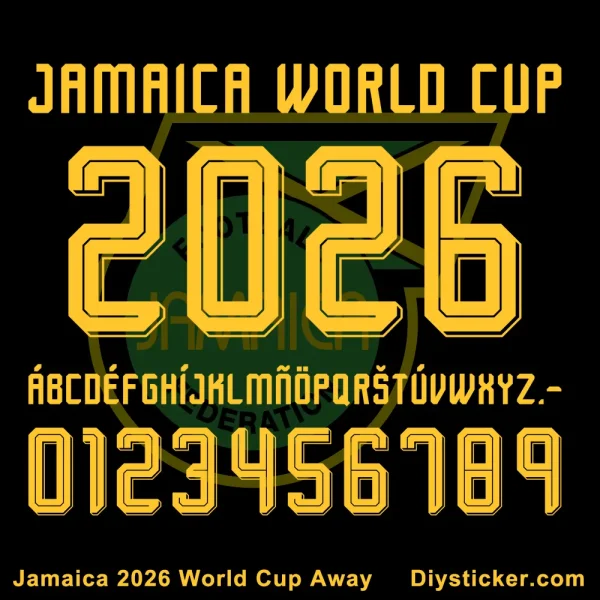
Get the exclusive Jamaica 2026 World Cup Away Font, inspired by the legendary Bob Marley and the “Football is Freedom” collection. This premium digital download features the new angular typeface designed specifically for the 2026 World Cup away kits. The pack includes installable fonts (TTF, OTF) and professional scalable vectors (AI, CDR, PDF) for flawless DIY printing and graphic design.
Capture the Reggae Rhythm: Jamaica 2026 Away Typography
As the Reggae Boyz prepare for the world stage, own the typography that defines their journey. Our Jamaica 2026 World Cup Away Font is a precise recreation of the angular, bold typeface seen on the iconic black Jamaica 2026 Away Jersey (External Link). This font perfectly complements the retro Adidas Trefoil logo and the vibrant Jamaican artwork featured on the new kit.